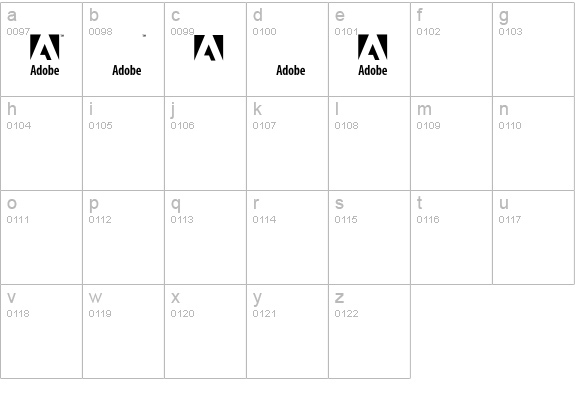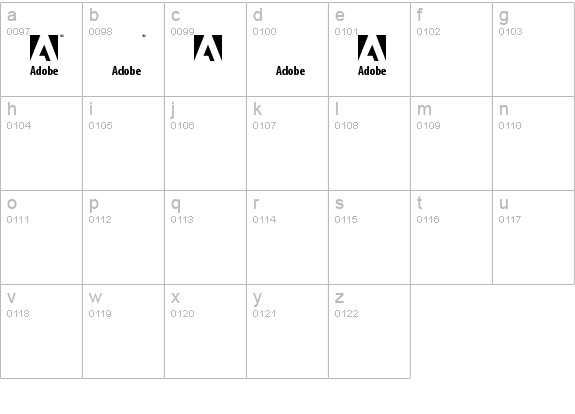
Adobe Corporate ID Adobe Font Details
The Adobe Corporate ID Adobe font is a modern and sophisticated typeface designed specifically for the corporate world. Its sleek lines and clean design make it perfect for professional documents, presentations, and branding materials. This font exudes elegance and professionalism, making it an ideal choice for businesses looking to make a strong and lasting impression. What's even better is that the Adobe Corporate ID Adobe font is available for free download at FontsMarket.com. This means that you can easily access and use this high-quality font without any cost. Enhance your projects with this versatile and stylish typeface today by downloading it for free at FontsMarket.com.